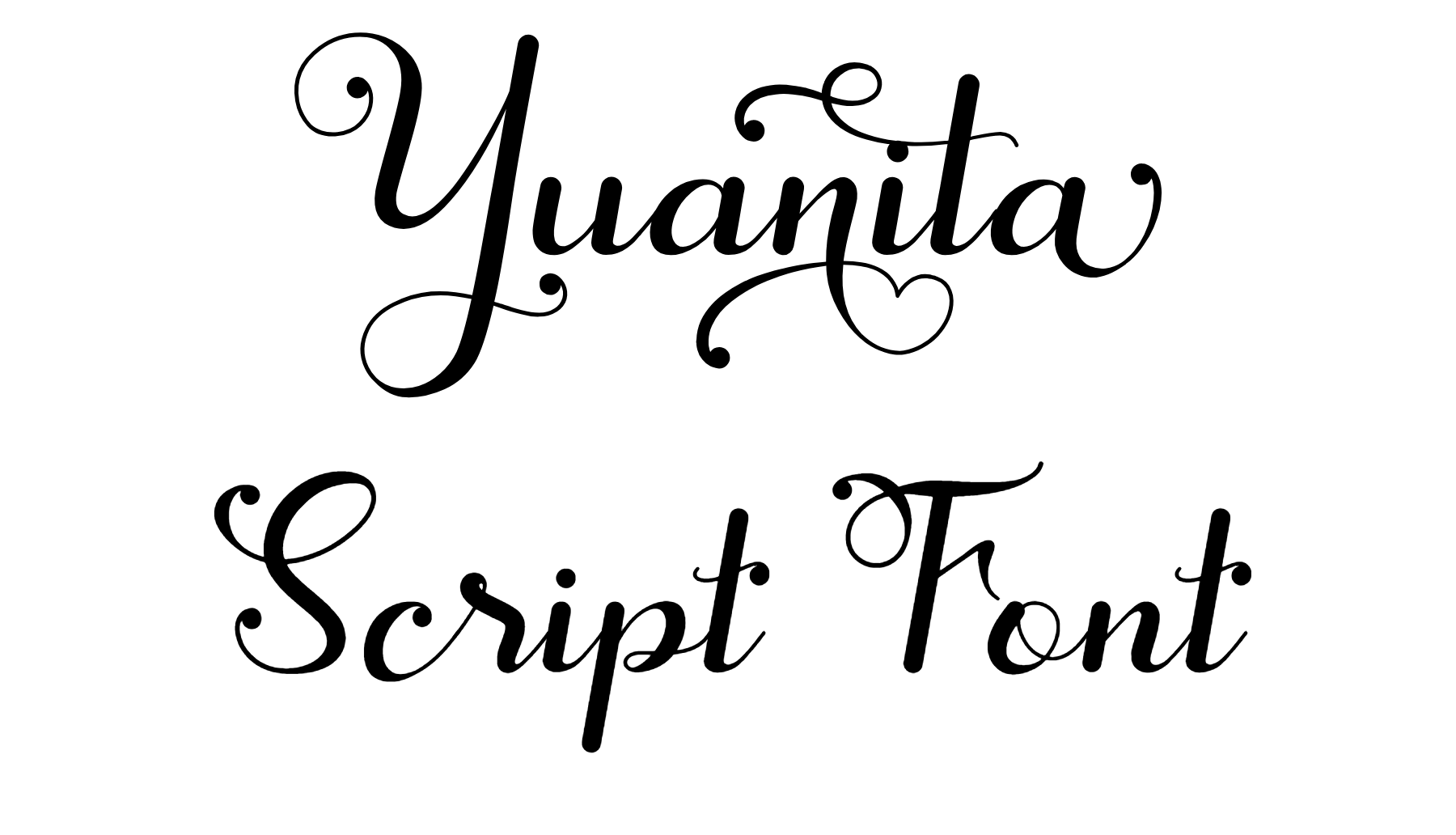
Yuanita Script
Yuanita Script is a calligraphy font designed by Putra Novembria Candra Kusuma and published by Putracetol Studio, Karanganyar (2019). It has that hand-lettered, flowing feel people look for when regular type seems too stiff. It's a free download, and you can try it with your own text in the preview above first.
- Designer: Putra Novembria Candra Kusuma
- Publisher: Putracetol Studio, Karanganyar
- Extra characters: 166 copy-and-paste alternates (Private Use Area)
What You Can Type With Yuanita Script
Yuanita Script covers the full alphabet in upper and lowercase, plus all ten numbers, so you can set names, dates and prices without switching fonts. Common punctuation such as &, !, ? and @ is included as well. It also has the accented letters you need for Spanish, French, German, Portuguese and Italian.
How to Use the Alternate Letters in Yuanita Script
Where Yuanita Script Works Best
Yuanita Script is a natural fit for wedding invitations, certificates and elegant quotes. Its lowercase letters are small compared to the capitals, so set it a size or two bigger than usual. Script fonts read best in short bursts, so keep it to names, titles and one-line quotes. Skip all caps: script capitals are drawn to start a word, not to fill one.
Does Yuanita Script support accented letters?
Yes. Yuanita Script includes the accented letters needed for Spanish, French, German, Portuguese and Italian, so it works for more than just English.